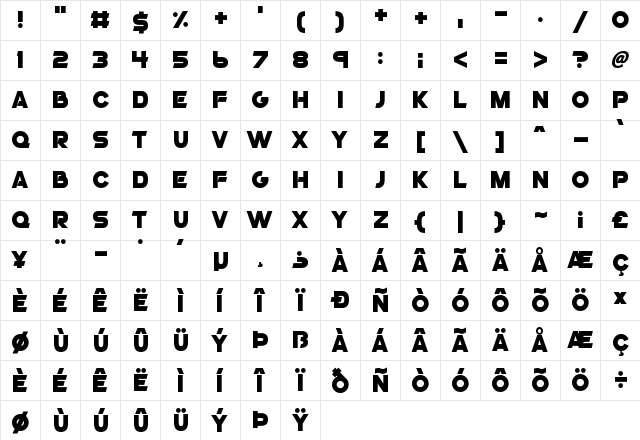
GoGo Poster 2020 Regular Font Preview
GoGo Poster 2020 Regular
Design Context for GoGo Poster 2020 Typeface
GoGo Poster 2020 offers clean, dependable letterforms without strong stylistic allegiance, making it a practical choice for designers who need flexibility.